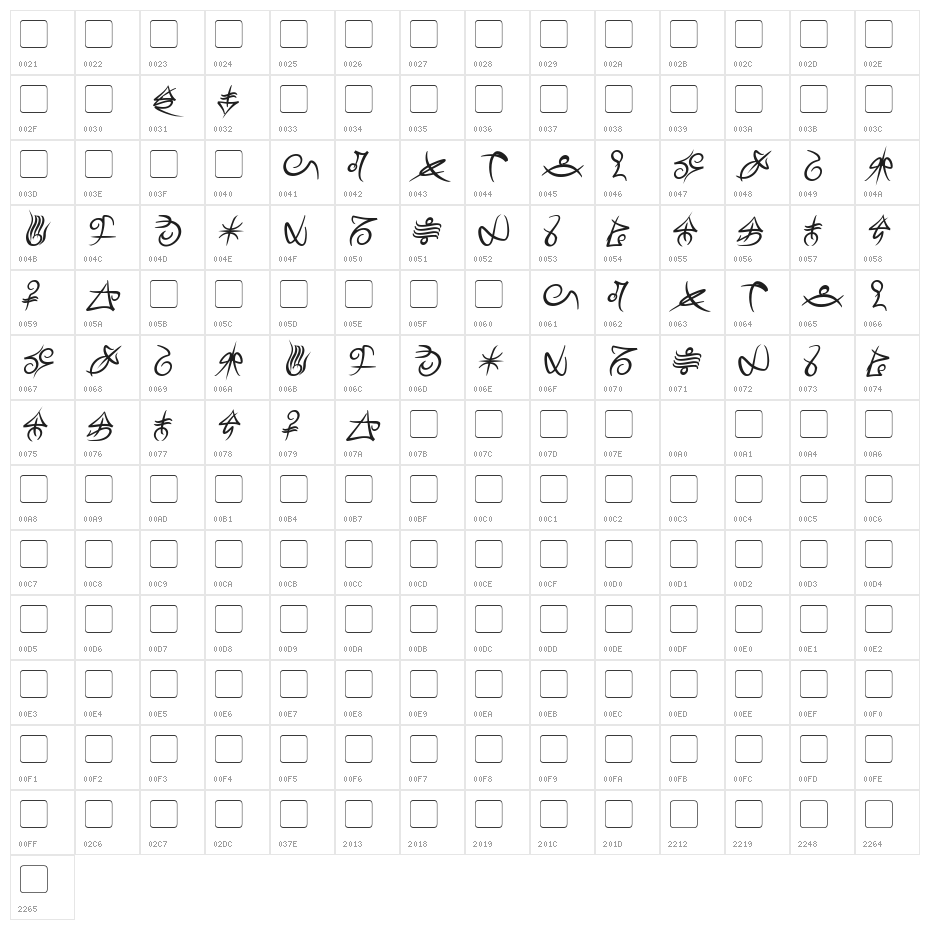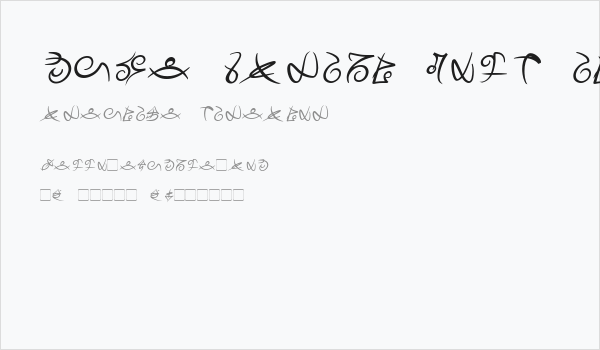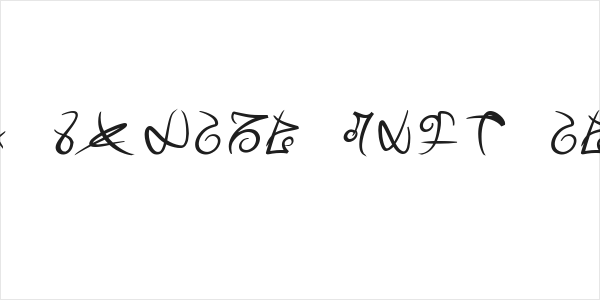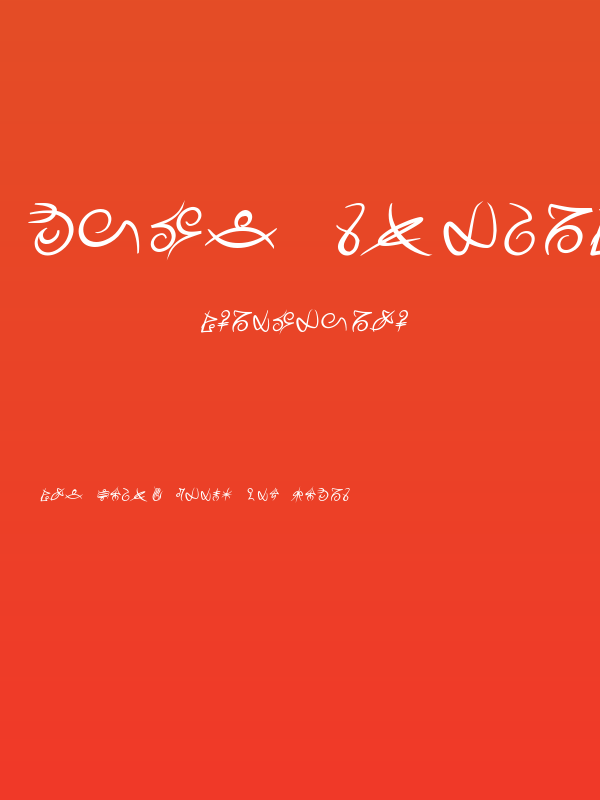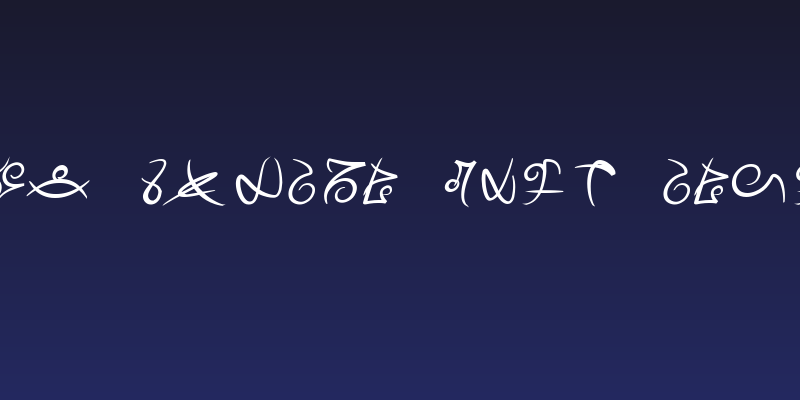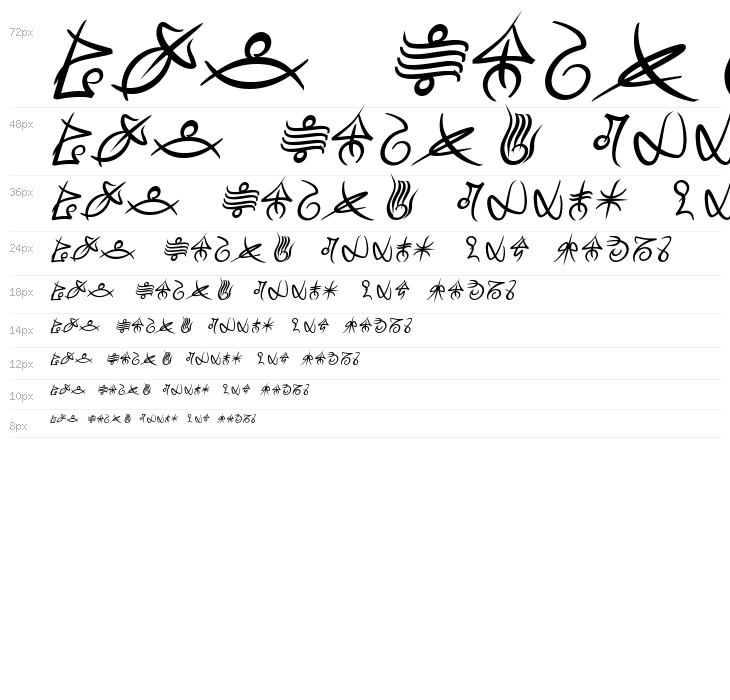
Mage Script Bold Italic Font
Mage Script Bold Italic Description
This font exhibits a highly decorative and mystical style, characterized by intricate curves and sharp, angular elements. Each character is designed with a unique flair, combining both fluid and rigid strokes that create an enigmatic appearance. The letters are bold and italicized, enhancing their dramatic and artistic presence. The overall design suggests a magical or fantasy theme, making it suitable for creative and imaginative projects. The font's distinctiveness lies in its elaborate detailing and the way it captures attention with its unconventional shapes.
| Proposed Projects | Ideal for fantasy book covers, game titles, magical event invitations, and themed posters. |